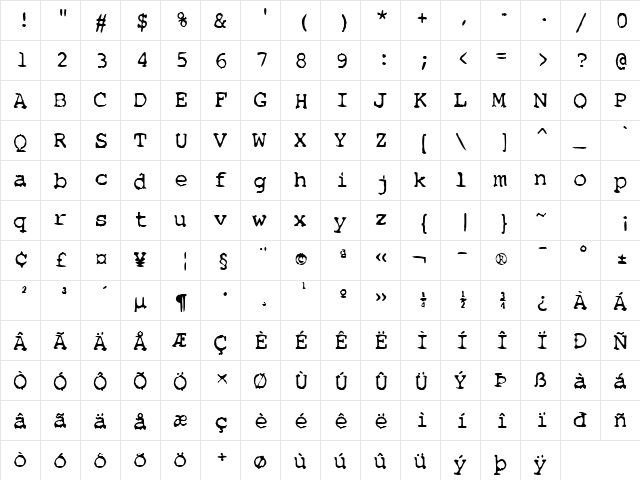
Remington Regular Font Preview
Remington Regular
Remington Regular Font Details
Design Context for Remington Typeface
Remington takes a measured approach to typography — its balanced proportions and neutral character make it a reliable workhorse for both digital and print work.
Pro Tip: Pair Remington with a font of contrasting weight or personality to build a more expressive typographic hierarchy.